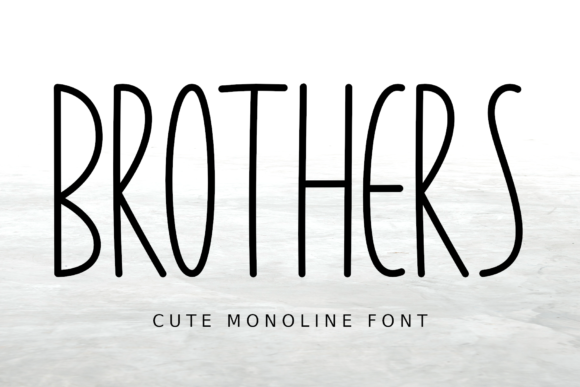
Introducing Brothers Font, the Sans Serif Masterpiece for Lyricists
Prepare to be captivated by Brothers Font, the extraordinary Sans Serif creation from the esteemed foundry, AV Type. This towering font, with its unassuming yet captivating letterforms, is the epitome of lyrical aesthetics. Its tall stature and clean, refined lines exude an air of timeless elegance, making it the perfect choice for any lyricist seeking to elevate their craft.
Beyond its visual appeal, Brothers Font possesses an inherent versatility that empowers it to transcend the boundaries of traditional lyric writing. Its inherent charm lends itself effortlessly to a myriad of creative endeavors, from heartfelt love letters to thought-provoking essays. Its ability to convey emotions with unparalleled precision makes it the ideal companion for poets, novelists, and musicians alike.
The genius of Brothers Font lies in its uncanny ability to transform ordinary words into extraordinary expressions of the soul. Each meticulously crafted character dances across the page, carrying with it a profound emotional weight that resonates deep within the reader's consciousness. Its tall, slender frame provides ample space for creative flourishes, allowing you to infuse your lyrics with a unique personal touch.
Whether you're a seasoned lyricist or embarking on your poetic journey, Brothers Font is the infallible tool that will ignite your imagination and unleash your creative potential. Its unwavering reliability makes it the perfect choice for projects of any scale and complexity, ensuring that your words will always command attention and elicit profound emotions.
Join the ranks of discerning lyricists and creatives who have embraced the transformative power of Brothers Font. Allow its elegant simplicity and emotional depth to guide your words to new heights of eloquence and impact. With Brothers Font at your fingertips, the boundaries of lyrical expression dissolve, and the path to creative fulfillment becomes an exhilarating journey.